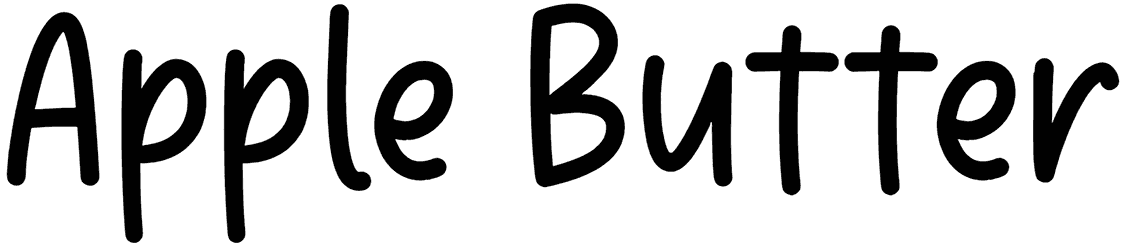
Apple Butter Font
Your intended design will have a realistic and adorable visual if you choose this handwritten font. The Apple Butter font includes casual and minimal characters that are perfect for a birthday party invitation. Set this script font on your next creative project to see how unique the final show will become.